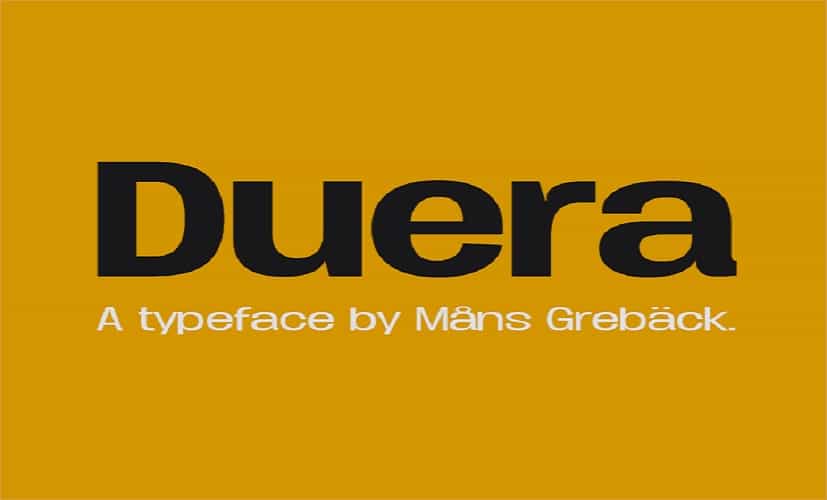
Discover Duera Font Family, part of the Sans Serif collection—a versatile and unique font perfect for adding a personal touch to your projects. Download it for free and enjoy crafting designs with style, from invitations to social media posts. This font is available exclusively for personal use, giving you the freedom to create without limits. Unlock your creativity with Duera Font Family today!
Duera is a very elegant Sans serif font which is created by Måns Grebäck and the good news is that it is available for free for personal use. The free version offers all the letters in both small and capital letters and a few more symbols.